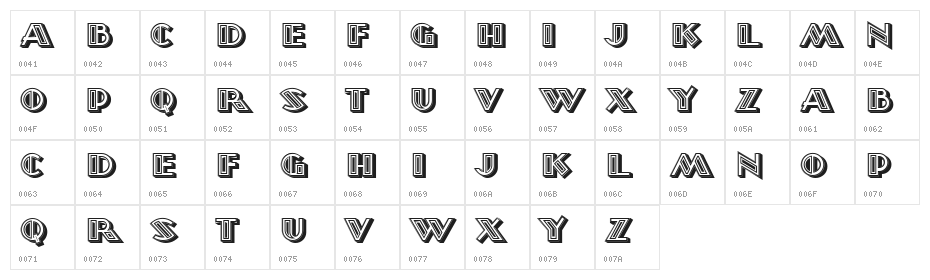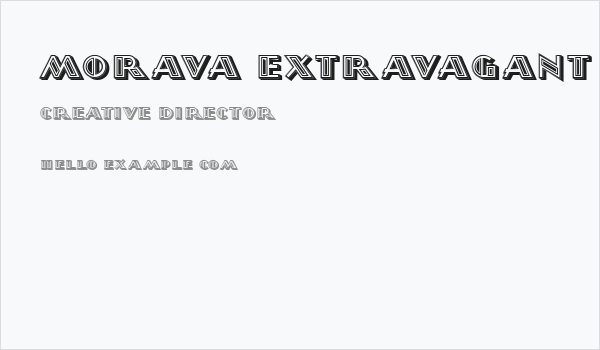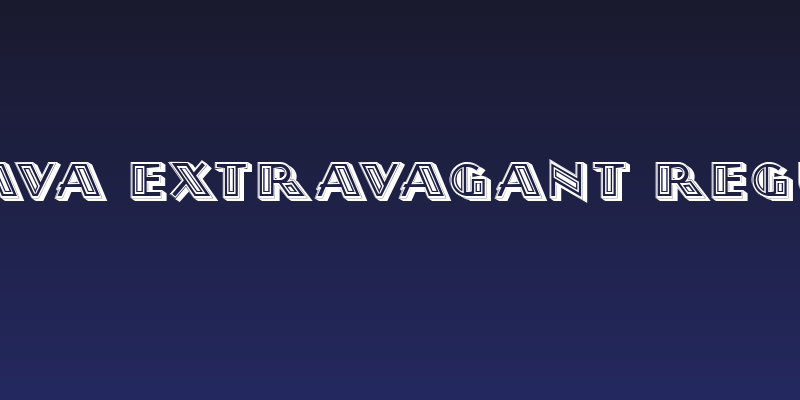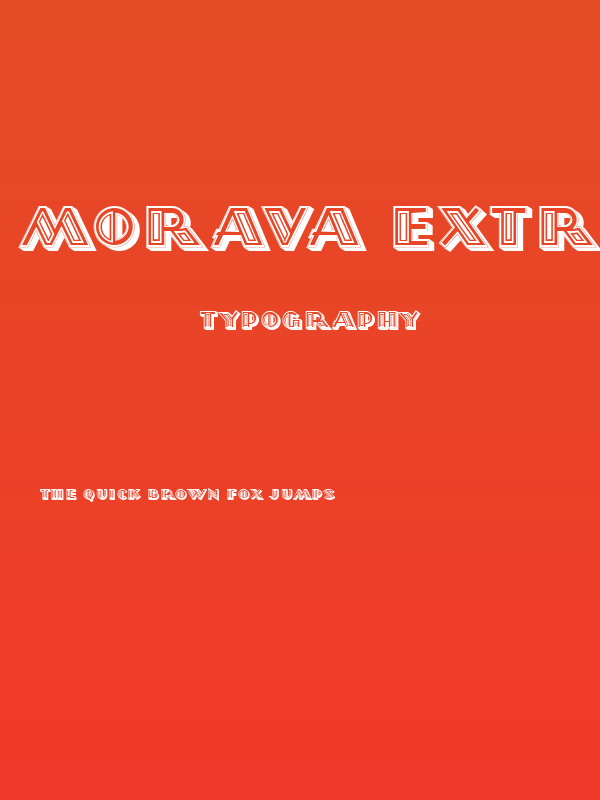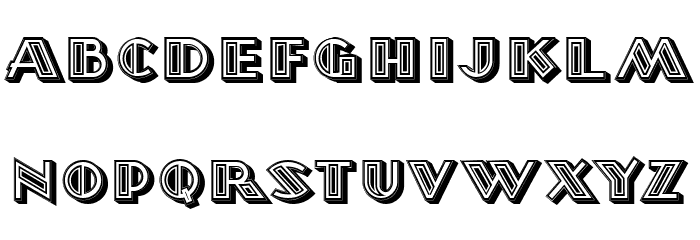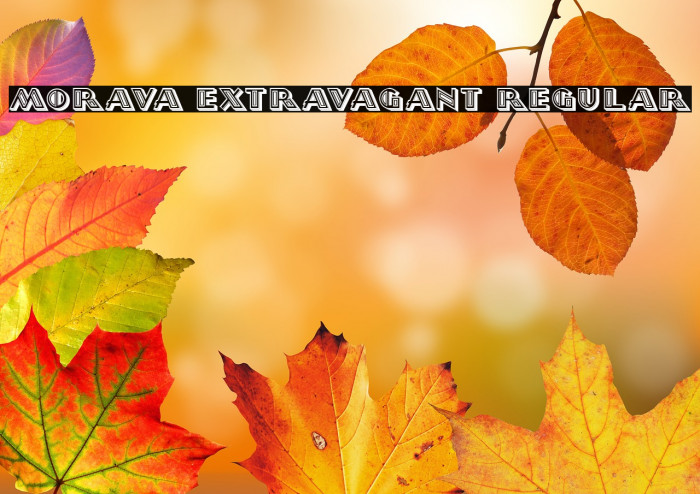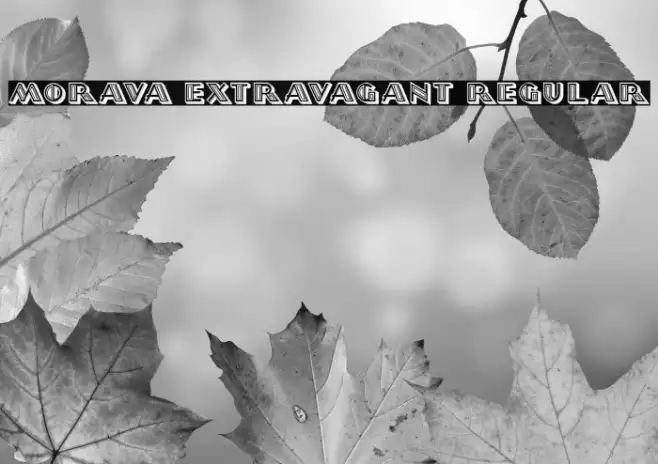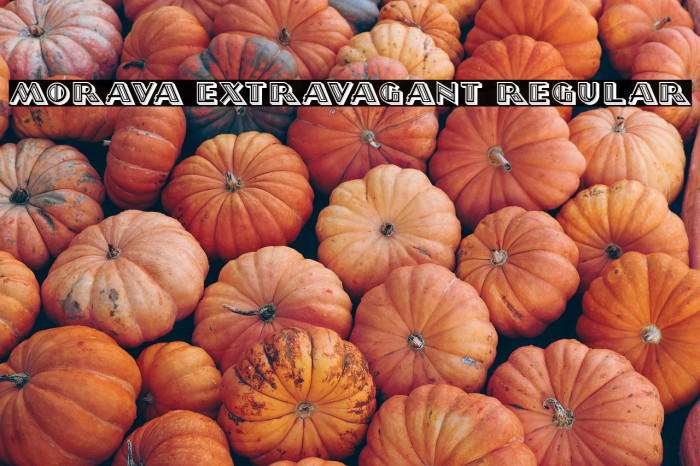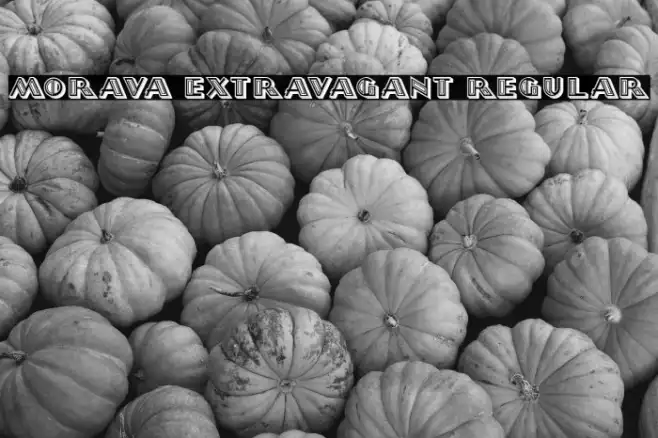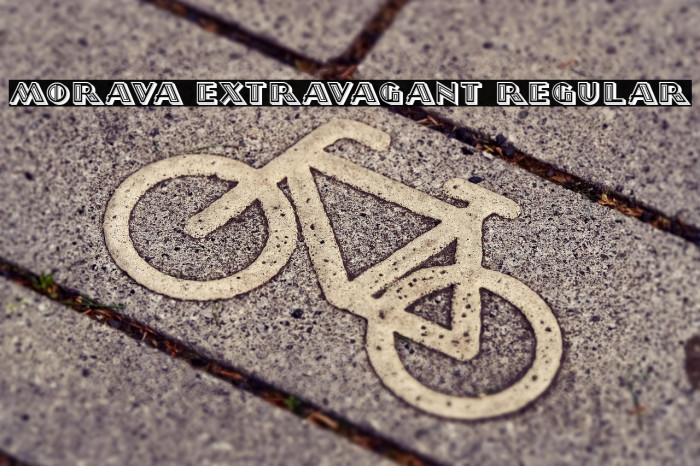
Morava Extravagant Regular Font
Morava Extravagant Regular Description
This font features a bold and striking design with a three-dimensional effect created by layered outlines and shadows. The characters are uppercase only, with a geometric and angular style that gives them a modern and dynamic appearance. The thick strokes and sharp edges contribute to its bold presence, making it ideal for attention-grabbing headlines and titles. The font's unique structure and decorative elements make it stand out, offering a sense of movement and depth. Its intricate design is well-suited for projects that require a strong visual impact.
| Proposed Projects | Ideal for posters, logos, branding, and any design needing a bold statement. |